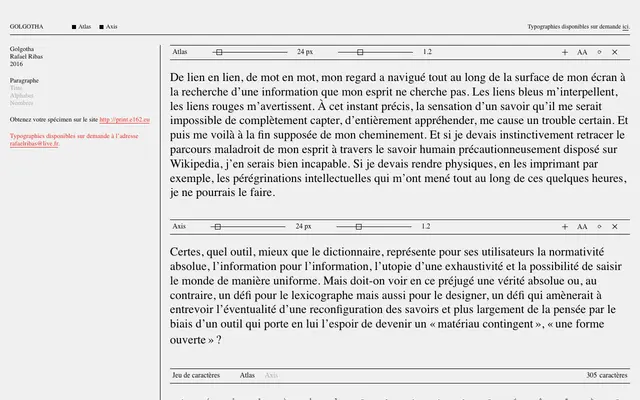
Golgotha
A serif family by Rafael Ribas released in 2016, comprising two named styles, Atlas and Axis, with a character set of 305 glyphs.
Designed by Rafael Ribas and published through E162, Golgotha is structured around two distinct subfamilies, Atlas and Axis, intended for text and titling use respectively. The family covers 305 characters and is available on request directly from the designer. Specimen materials are available via the E162 print portal.
The page presents two subfamily styles, Atlas and Axis, suggesting a structured serif family; the sample text and specimen context point to a text-oriented transitional or classical serif design.